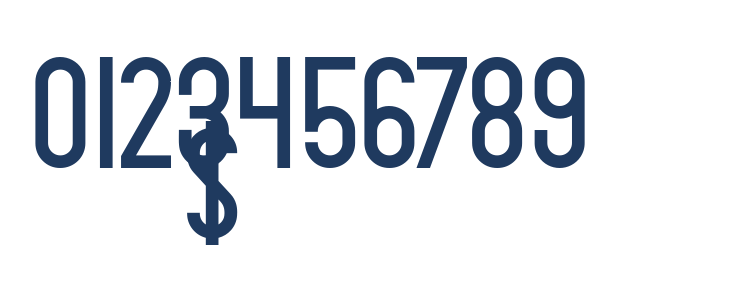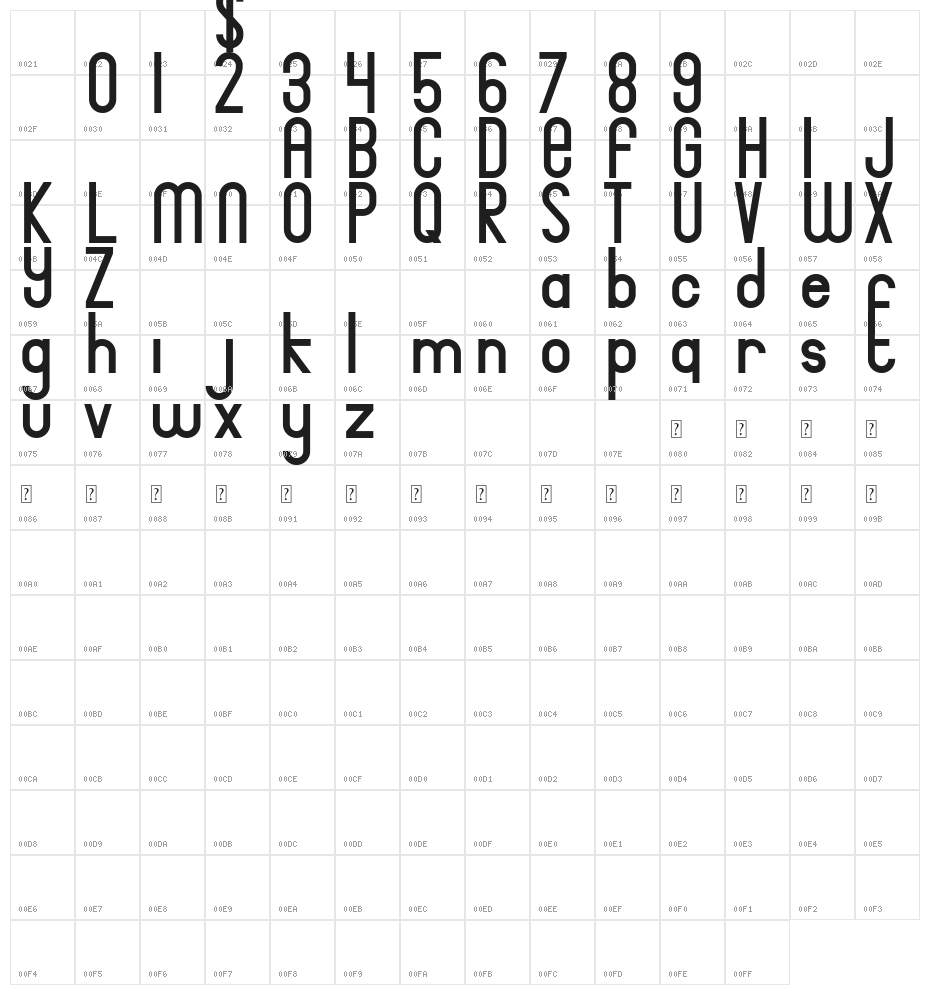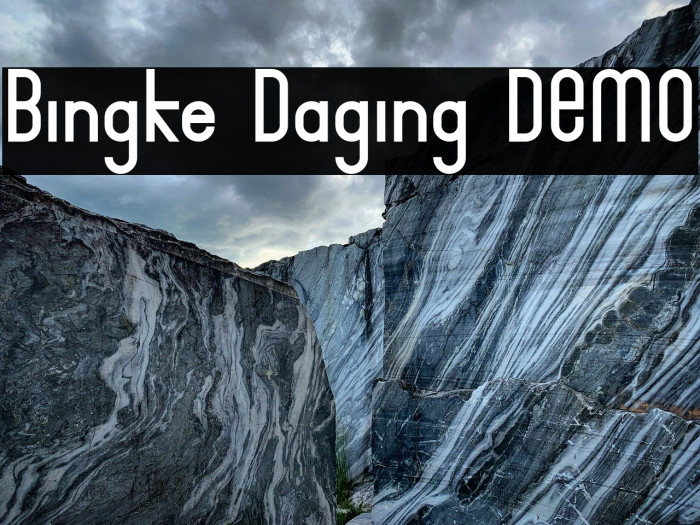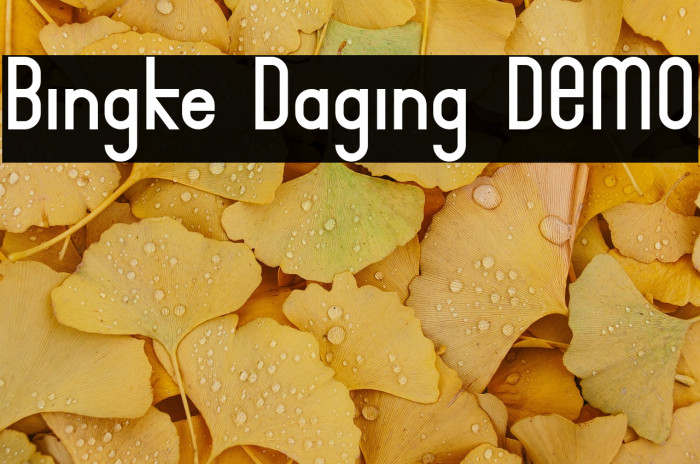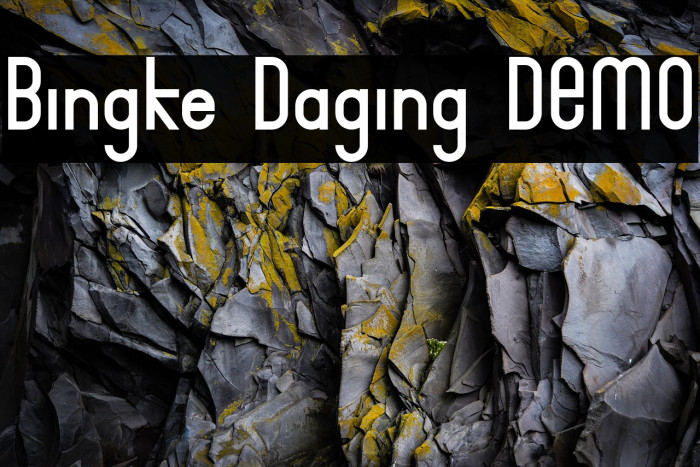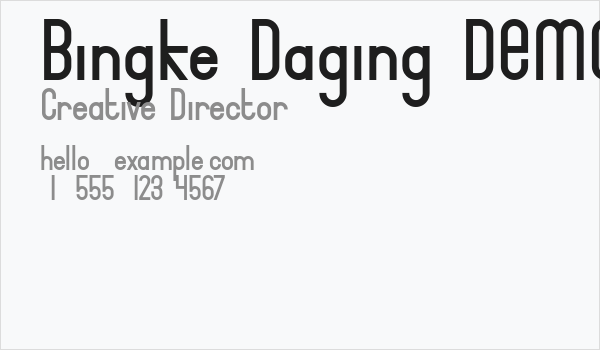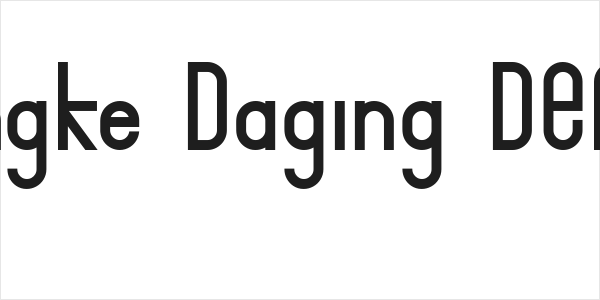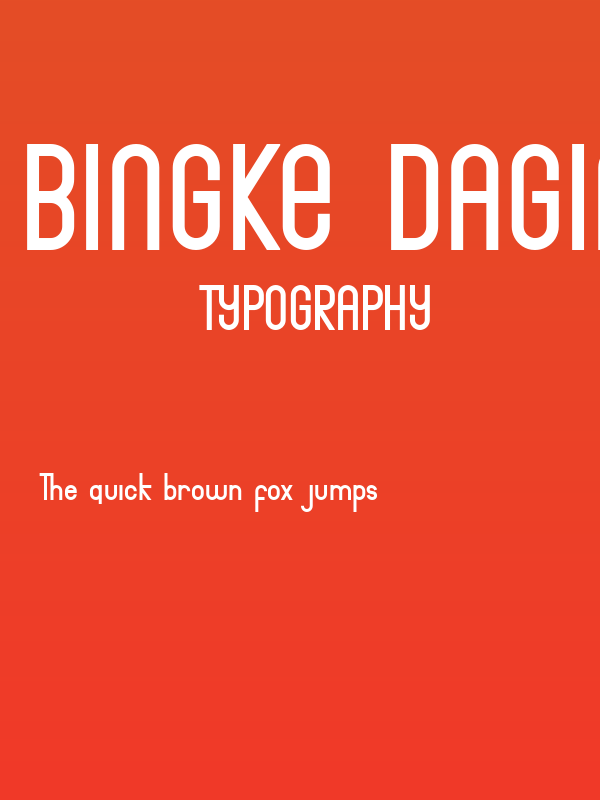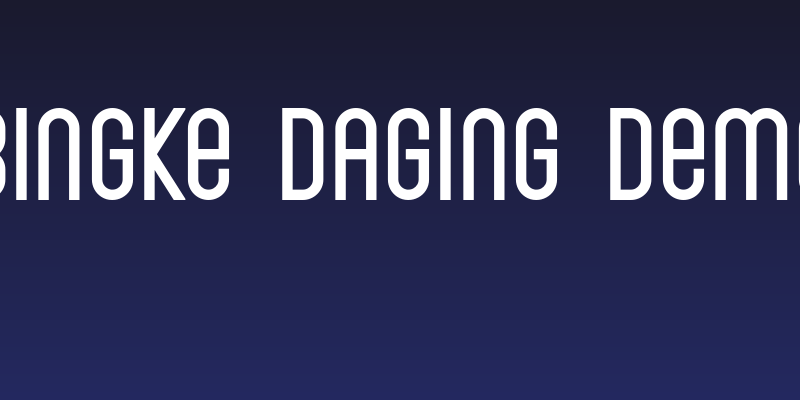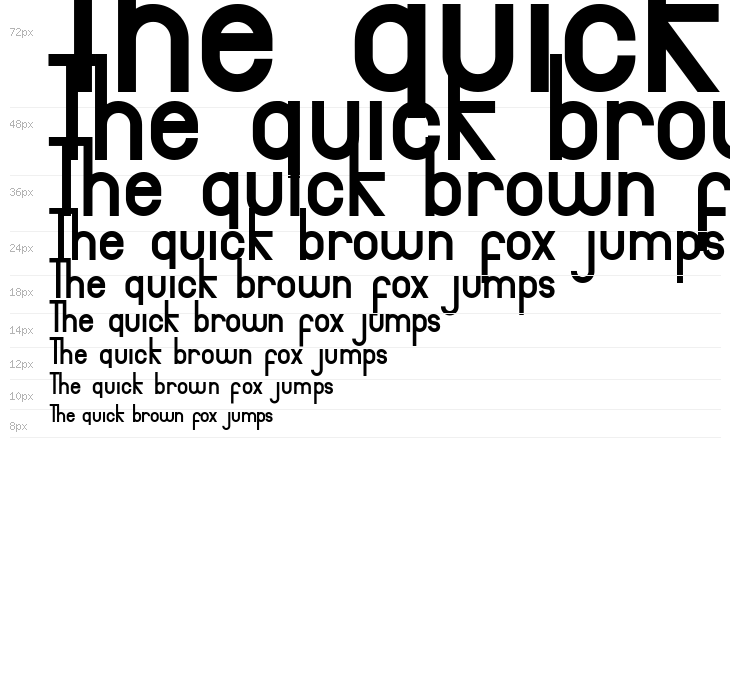
Bingke Daging DEMO Font
Bingke Daging DEMO Description
This font features a modern and clean design with a geometric structure. The uppercase letters are tall and narrow, giving a sleek and contemporary appearance. The lowercase letters maintain a consistent style, with rounded edges that add a touch of softness to the overall look. The numerals are bold and easily readable, making them suitable for various applications. Special characters like the dollar sign and ampersand are designed with the same geometric precision, ensuring uniformity across the character set. This font's balanced proportions and clear legibility make it versatile for both digital and print media.